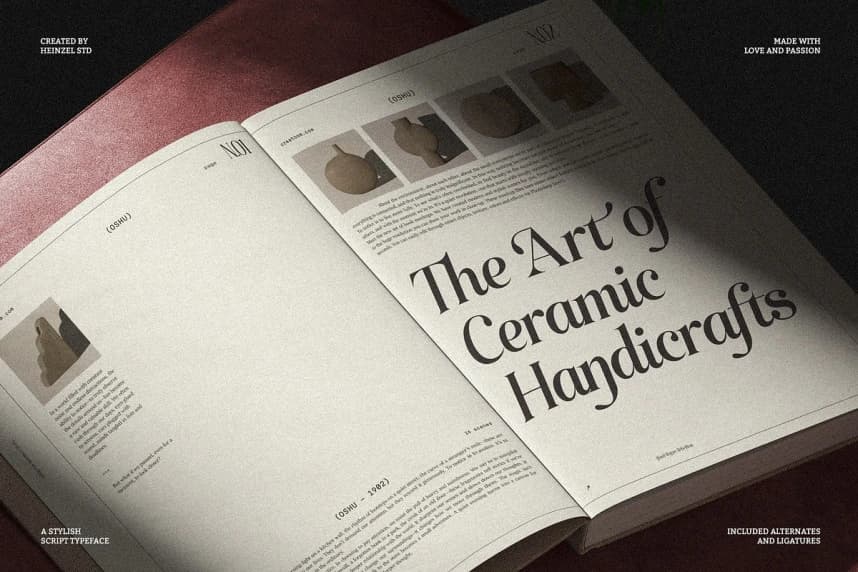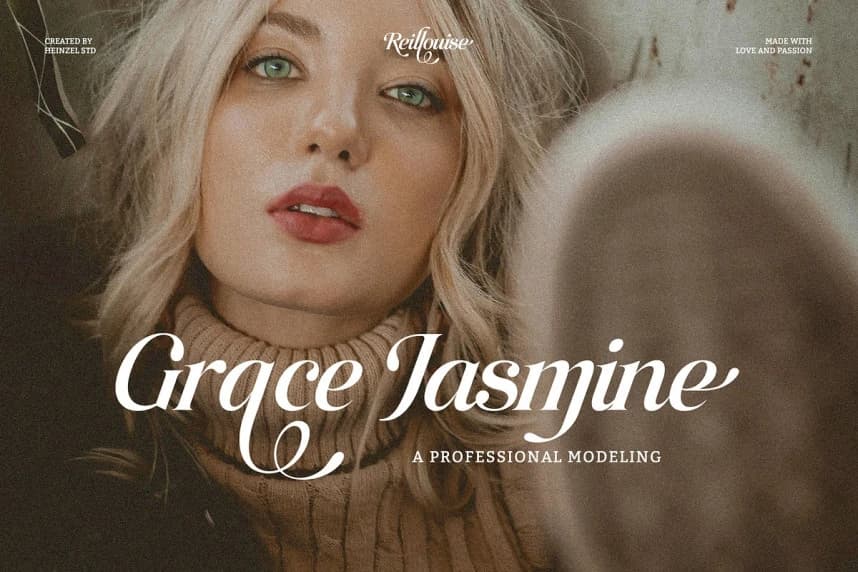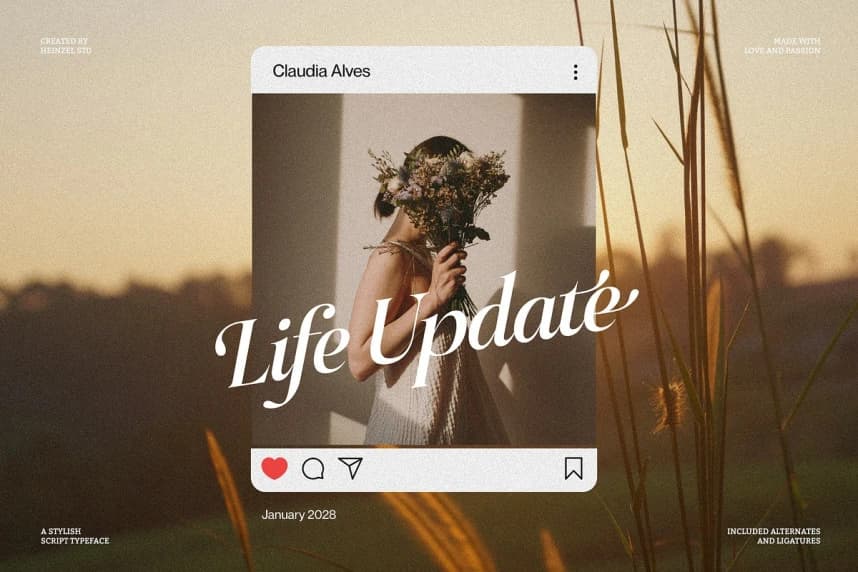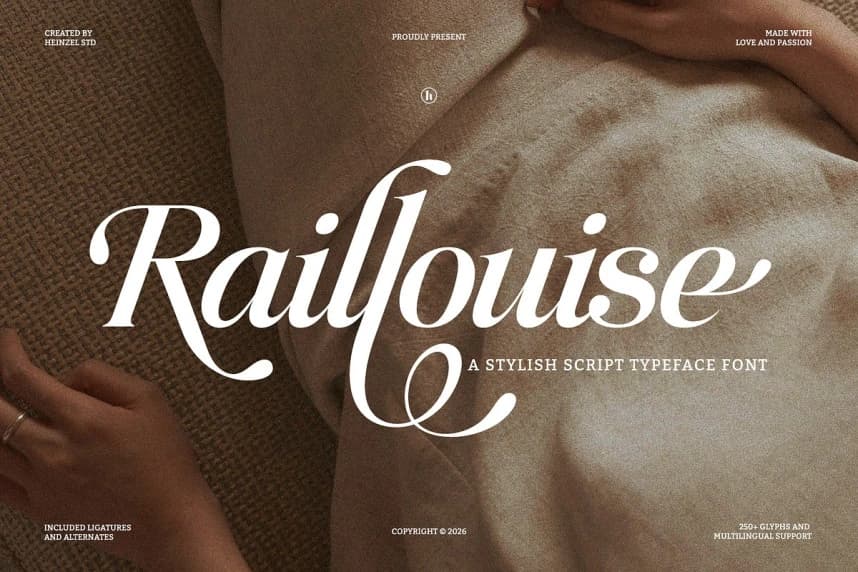
Raillouise Font is a stylish script font that blends modern elegance with timeless calligraphy. Designed with smooth curves, flowing strokes, and refined ligatures, this font delivers a luxurious and feminine feel perfect for branding, wedding invitations